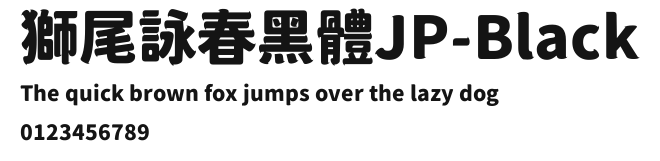
獅尾詠春黑體JP-Black Preview
• Font Name: 獅尾詠春黑體JP-Black
• Font Style: Black
• Full Font Name: 獅尾詠春黑體JP-Black
• PostScript Name: SweiFistSansCJKjp-Black
About 獅尾詠春黑體JP-Black.ttf
獅尾詠春黑體JP-Black.ttf is a modern, elegant sans-serif font designed for ultimate readability and visual harmony. Perfect for branding, headlines, web design, and print materials.